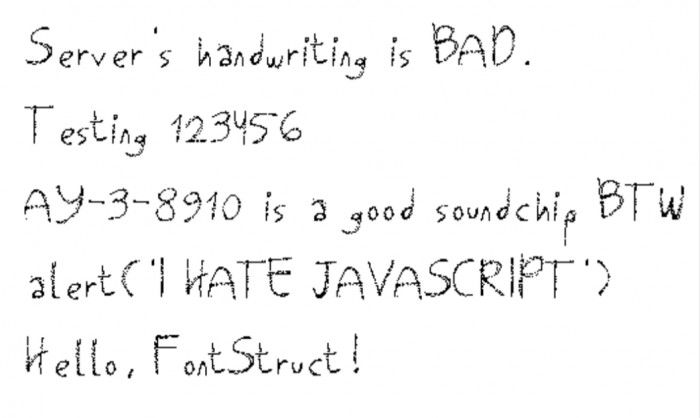
• yeah my handwriting kinda sucks
this is basically "sloppy lmao" but much higher resolution
expanded from basic latin to buncha other shit (internationalization!!). might expand more
my biggest font yet
each space is actually 5 spaces. only 1 space turned out to be the same width as the letter spacing.
nice the google fonts basic is *actually* arranged like the actual ascii table! (plus some code pages)